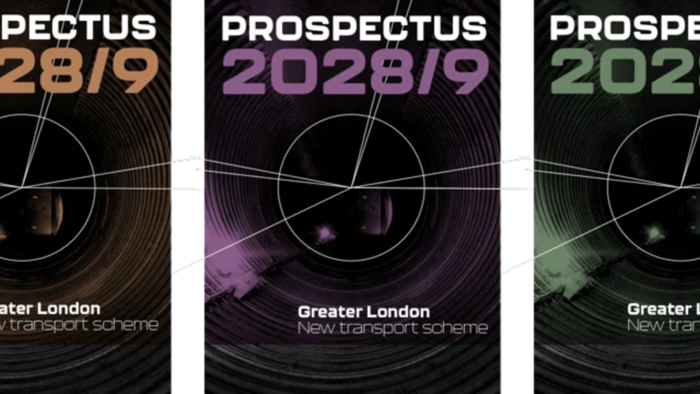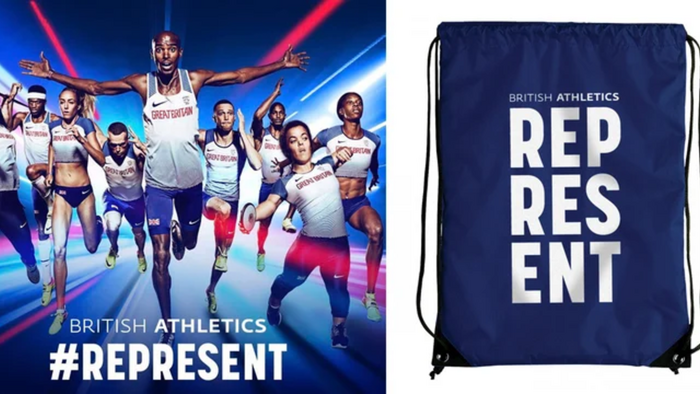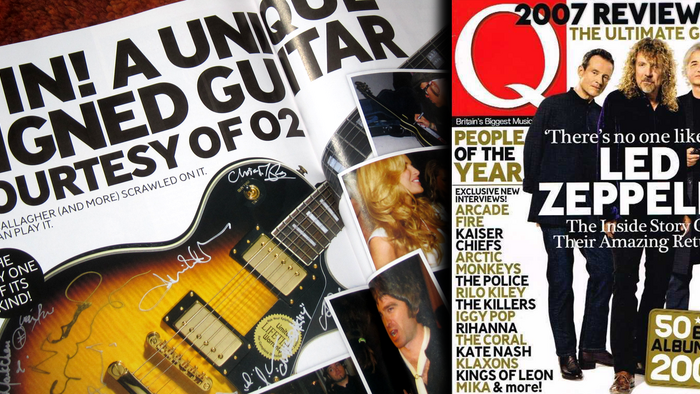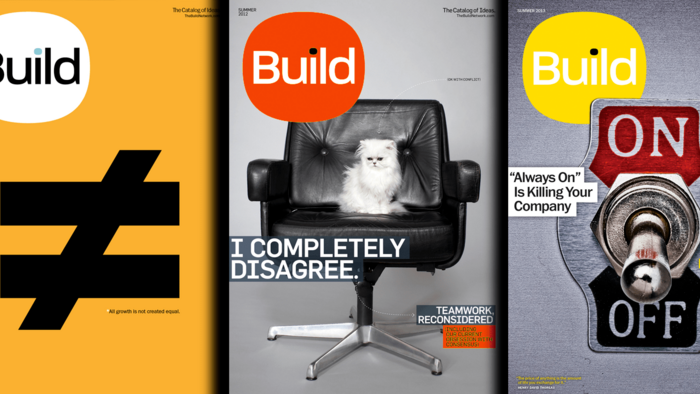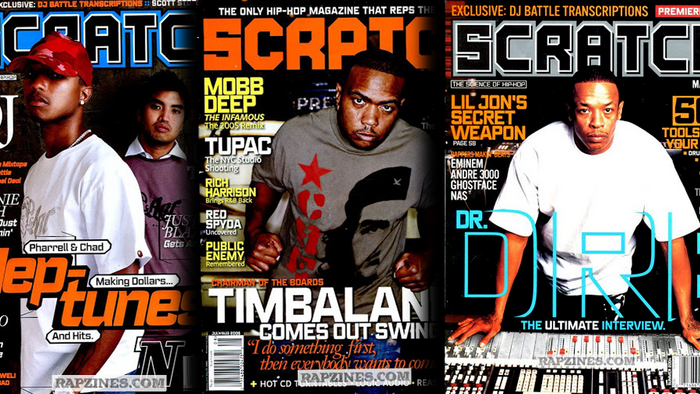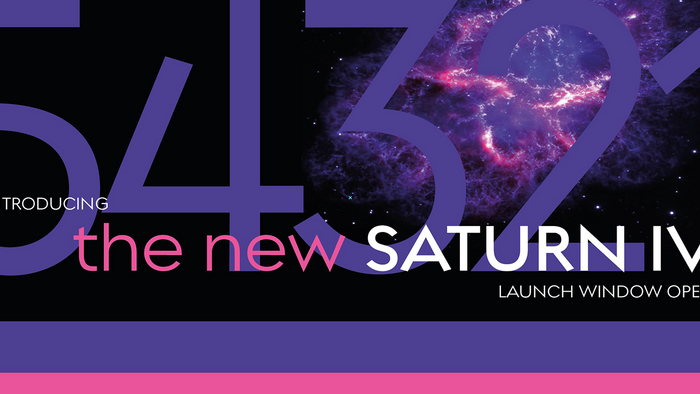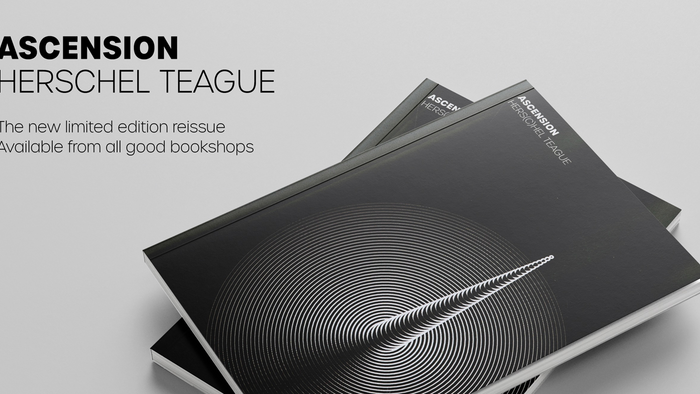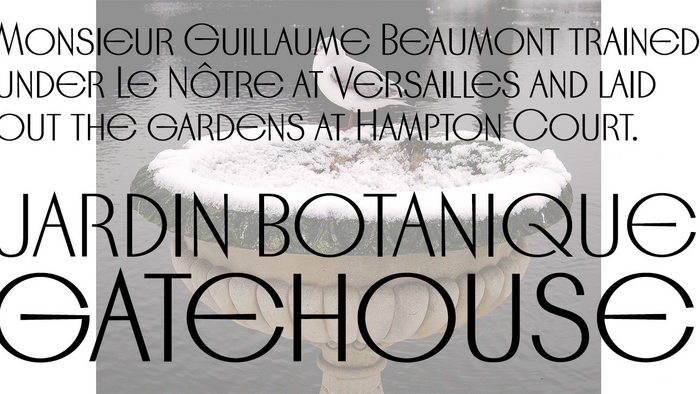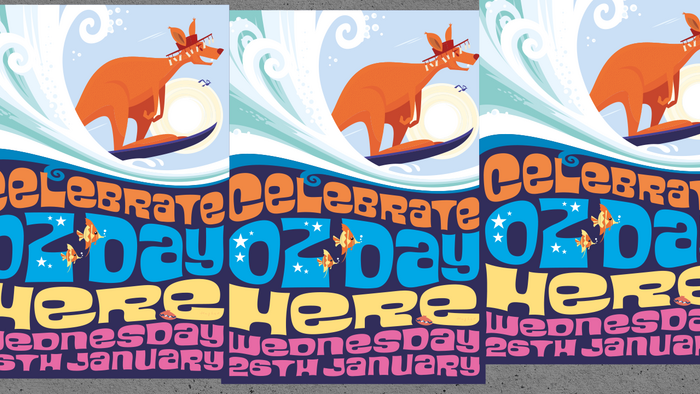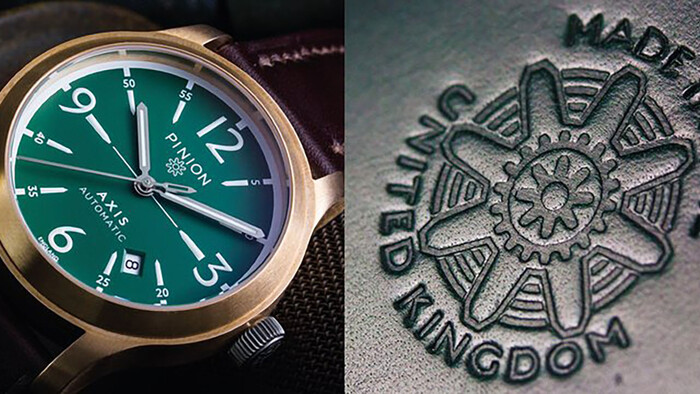
Device foundry highlights
by Device.
Curated by the Monotype Studio.
Device.
Device Fonts is the font arm of Rian Hughes’ Device studio, operating out of Kew Gardens, London and launched in 1997 to carry Hughes’ growing library of fonts. The foundry has released over 200 original typefaces covering more than 1,000 individual weights, including custom designs for clients as diverse as Mac User, 2000AD and The Teenage Mutant Ninja Turtles. Hughes leverages his background as a comic book artist and his other work as a designer, illustrator and lettering artist to create a wide range of font styles.
The capitals of Register share a similar construction to Morris Fuller Benton’s 1930 Bank Gothic for American Type Founders, but iron out the broader curves and add ‘ink traps’ to emphasize the machine aesthetic. Register also provides the lowercase that is missing from Bank Gothic. The typeface is available in two main widths, each in five weights plus reweighted italics with cursively-derived letterforms, as well as a bold condensed, Register has been used for the Sochi Winter Olympics, Source magazine, and releases from Transient Records.
Regulator Nova
A high lower-case x-height geometric sans with open counters, Regulator Nova is extremely legible at text sizes and in extended settings, while the range of weights also makes it suitable for headlines. The stoke terminals are all cut at close to 90 degrees, lending a sharp precision to the characters. Alternate versions of the g, j, r, w, K, R, W, # and ampersand are available in both upright and italic, and can be toggled on and off in the Opentype panel or the Glyphs palette. Clean, elegant and legible, Regulator Nova has classical proportions based on a circumscribed circle and square, and shares structural similarities to early sans serifs such as Rudolf Koch’s Kabel, while adopting more British forms for the M and R.
English Grotesque
English Grotesque is based on the proportions of an early 20th century signwriter’s sans, emphasising the characteristic idiosyncrasies of type during that period. Sharing a similar Roman circle-and-square construction with Gill Sans or Johnston Railway, it has a wide T and W, a narrow S, and a long-tailed R. The Roman alphabet did not include a lower case, therefore early sans-serifs based theirs on handwritten or cursive models, resulting in more even character widths. English Grotesque, by contrast, carries the more characterful proportions of the capitals through to the lower case. Available in six weights, with optional alternative versions for the Q, &, £ and J.
Ministry
Ministry is based on the original British ‘M.O.T.’ (Ministry of Transport) alphabet: a capitals-only, single-weight design originally created in the 1930s for use on Britain’s road network, and subsequently modified and evolved by various designers. For the digitization, Rian Hughes added an entirely new lower case, italics and a range of weights. The lower case mimics the forms of the capitals wherever possible, taking cues from the previous designers for letters such as the a and g, with single-tier versions in the italic. A uniquely British font that is now available in a versatile family for modern use, Ministry offers 14 different weights.
Blackcurrant
Blackcurrant is one of those Rian Hughes fonts that blend in seamlessly with his colorful style of outline drawings. No need, though, to commission illustration work from him to get that vintage cartoon atmosphere: this font family does it all by itself. Whimsical and cheerful, Blackcurrant’s asymmetric forms add fun to flyers, packaging and Tourist Board brochures. “Squash” is the more condensed version, “Black” is rather wide, and “Cameo” has its own unique look.
Paralucent
Paralucent, a versatile, all-purpose modern sans serif, is the designer’s take on the Helvetica/Akzidenz model — inspired by the industrial types of the late 19th-century — but it is much more personal and lively. Text weights have been adjusted for use at small point sizes, and feature more open character shapes, looser inter-letter spacing for improved readability, and lining numerals for use in listings and tables. The design focuses on the negative space between characters and an unusually high lower-case x-height that give more color and improve legibility. This popular font has been featured heavily in magazines such as Loaded, Heat and TV Quick, as well as in high-end coffee-table photography books and gallery websites.
Urbane
Urbane is a versatile all-purpose sans-serif family of six weights plus italics. It explores the same idea-space as early geometric modernist sans families like Futura, Erbar, Spartan and Elegant Sans, with a single-story a, a contemporary high x-height and very slightly condensed bowls. Perfect for headlines and running text, the typeface is clear, classic and authoritative. Letter-widths are optically balanced, which is unusual for a geometric modern sans, and gives an even color in setting. The font family includes a full international character set, lining, tabular, and old-style numerals.
Kallisto
A robust rectangular sans serif font with round corners and subtle rounded stroke terminals, Kallisto marries a rational, machine-made aesthetic with a certain warmth that derives from more familiar letter shapes that can be found on die-stamped or embossed boilerplate signs. Kallisto is offered in 10 different weights and is one of Device’s top-selling fonts on MyFonts. The designer has also created an interesting lined variant of this typeface, Kallisto Lined, which is suggestive of scan lines, speed and display screens.
Dauphine
Dauphine is an elegant caps and small-caps typeface that manages to be modern while still displaying perfumed good breeding.The double all-caps alphabet recalls the not-quite-geometric hand-lettering on classy 1930s packaging. The typeface has been used for logos, chocolate boxes, wedding invitations, romance novels and gift labels. The alternate version offers even more flair with its luscious long legs and tails on K, R, and Q. Dauphine comes with a leafy decorative variant — a typeface for spring!
Korolev
DF Korolev is a 72 weight geometric sans serif family based on lettering by an anonymous Soviet graphic designer from the propaganda displays at the Communist Red Square parade in 1937. It was named in honor of Sergey Pavlovich Korolyov, or Korolev, considered by many to be the father of practical astronomics. Rational and robust, it is also elegant and refined. The complete Korolev super-family includes standard, italic, condensed, and compressed versions, each in five weights, as well as ‘rounded’ and ‘rough’ companion families.